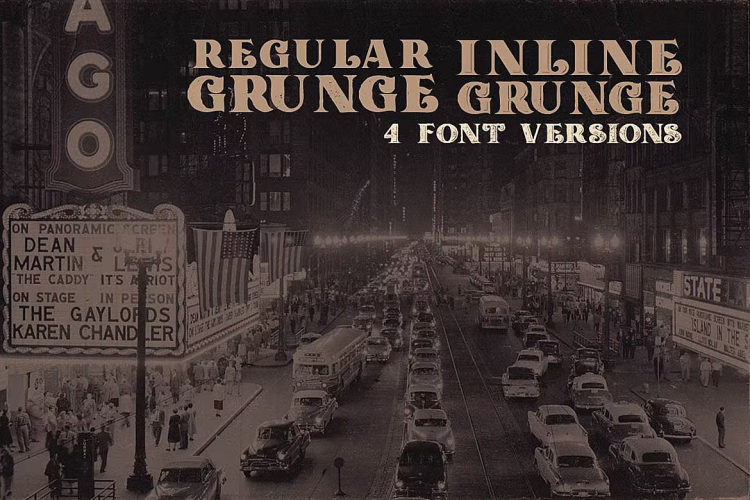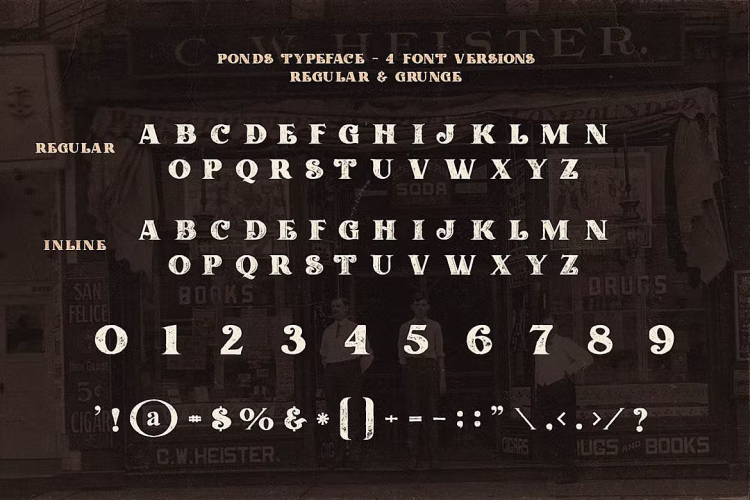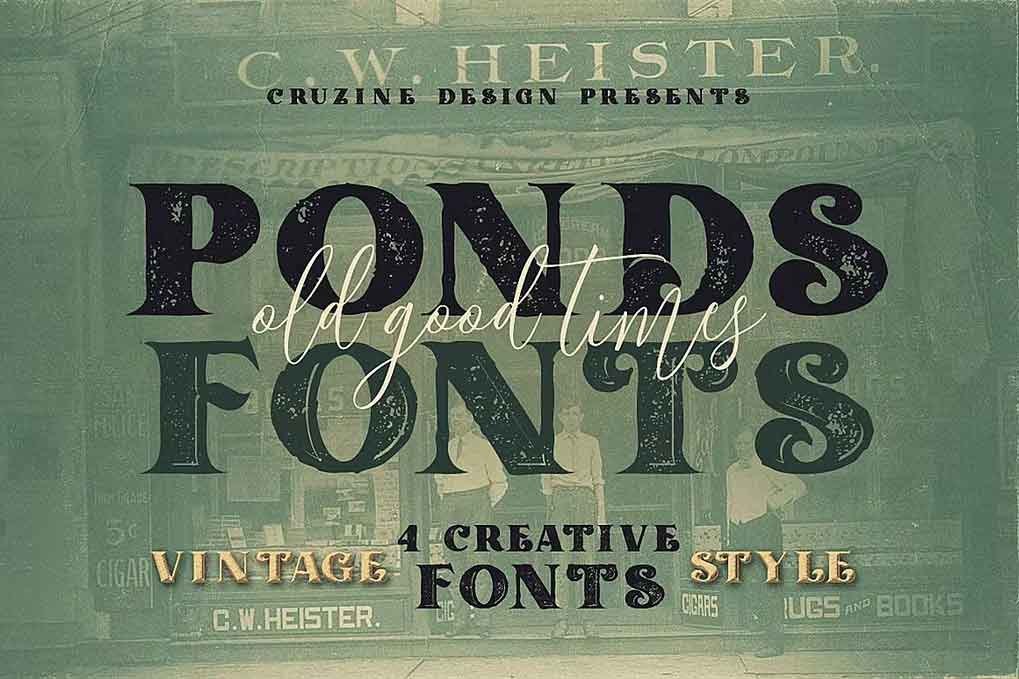
Ponds Typeface Font
Retro, vintage or grunge style display font for your new projects. Great for grunge/retro/vintage projects! 4 font files (otf & ttf) – regular & grunge, inline & grunge…
Retro, vintage or grunge style display font for your new projects. Great for grunge/retro/vintage projects!
Where Ponds Typeface Font works best
Reports, white papers and book interiors hold the eye longer when the text face has real serifs; Ponds Typeface Font keeps that rhythm without looking old-fashioned.
Food, spirits and cosmetics brands lean on serif wordmarks to suggest age and care. Ponds Typeface Font gives that signal at wordmark size.
Set Ponds Typeface Font for the body of an award or a diploma and keep the recipient name in a script; the pairing is what makes a document feel official.
What kind of work does Ponds Typeface Font suit?
It sits in the Serif Fonts group and reads as display, retro, serif, serif fonts. That makes it a candidate wherever those qualities help: headings, packaging, social graphics and brand work. Set it at the size you plan to use before deciding.